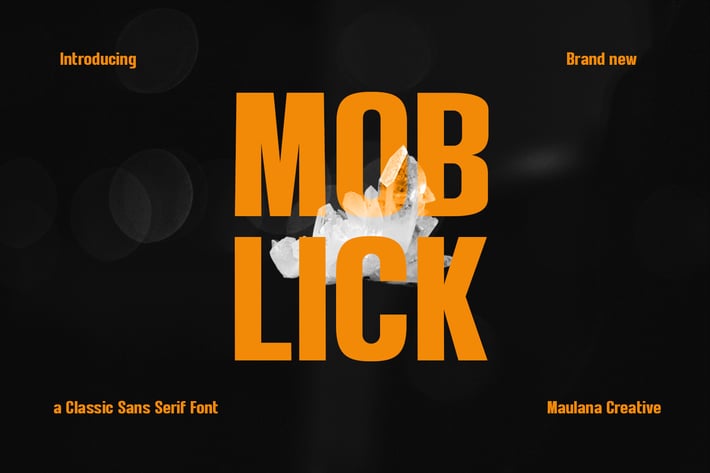
Moblick Sans Serif Font
Moblick is a 90's vibes sans serif font. Bold stroke, fun character with a bit of ligatures and alternates. To give you an extra creative work. Moblick font support multilingual more than 100+ language. This font is good for logo design, Social media, Movie Titles, Books Titles, a short text even a long text letter and good for your secondary text font with script or serif. Make a stunning work with Moblick font.